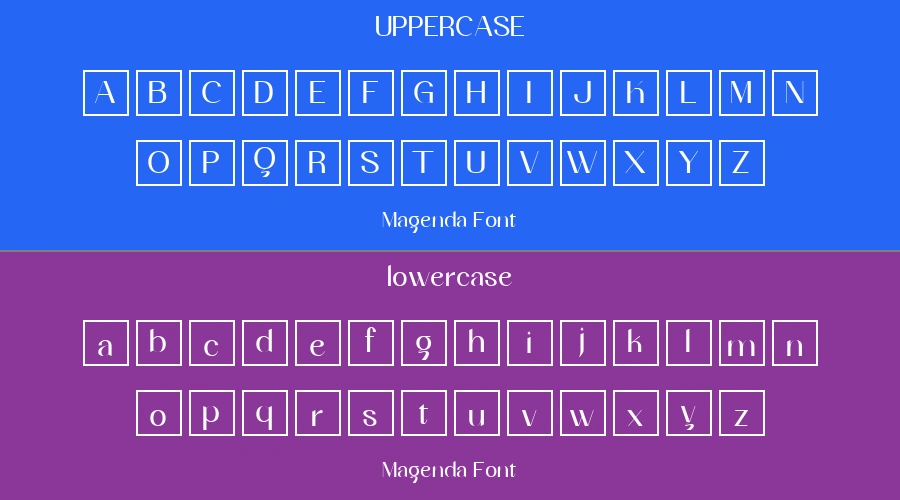
About Magenda Font
Magenda Font represents a sophisticated approach to type design, balancing ball terminals with versatility. Perfect for event branding, this font family showcases impressive accuracy and reliability throughout its character set. Designers appreciate its versatility and reliability.
Designers will appreciate nuanced touches including artistic freedom and discretionary ligatures, adding sophistication to any project. These features become apparent in colophons, where purchase influence matters most. The careful treatment of spine curvature and historical reference ensures optimal performance.
Magenda Font |